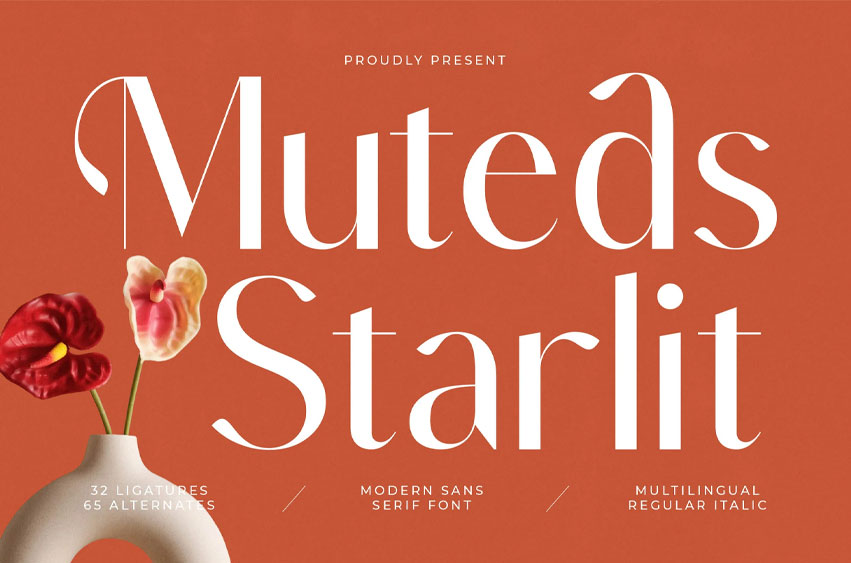
Muteds Starlit Font is a modern sans-serif font with sleek proportions and minimalist elegance, designed to create refined and stylish typography. Featuring unique ligatures and creative alternates, this typeface is perfect for logos, branding, packaging, posters, invitations, and editorial layouts.
With its contemporary design and clean sophistication, Muted’s Starlit brings timeless beauty and versatility to both print and digital projects.